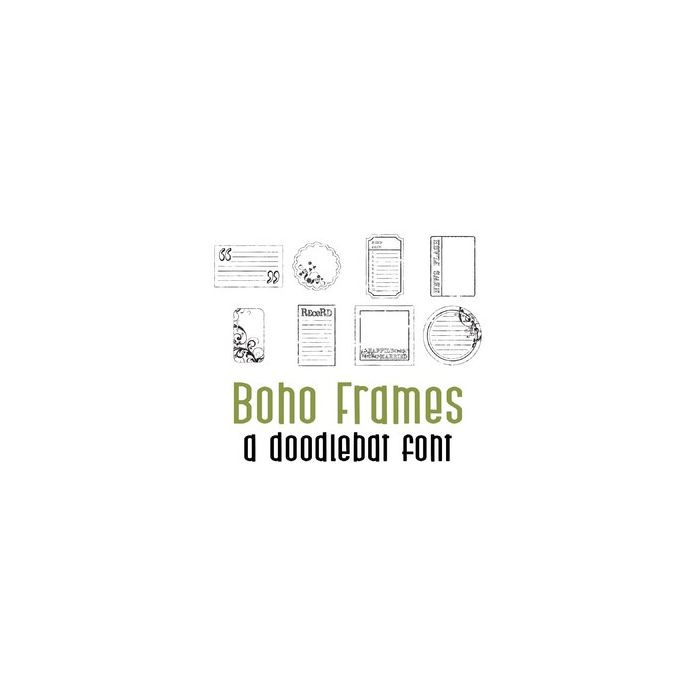
his fun doodlebat font features 26 bohemian style frames and journaling boxes. Perfect for cards, gifts, decor, crafts, scrap book pages, planner stickers and more!